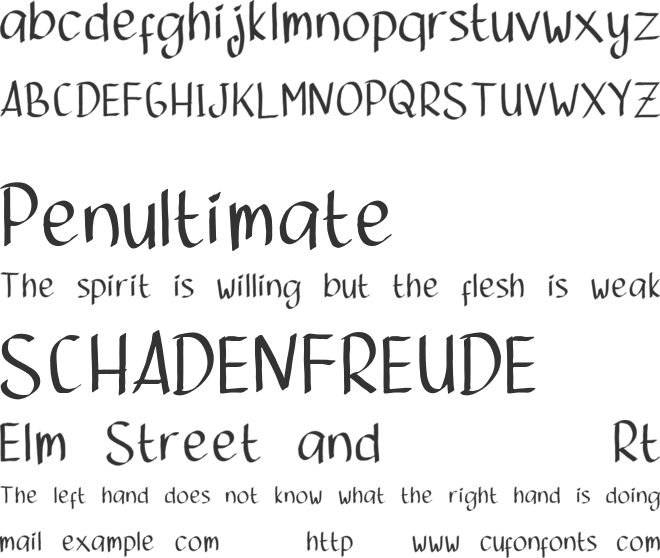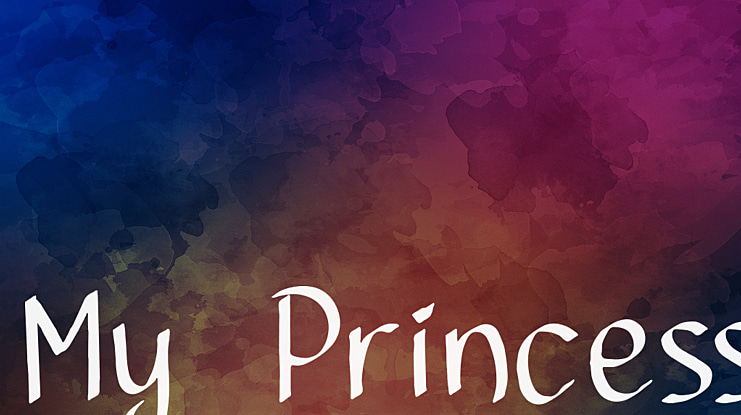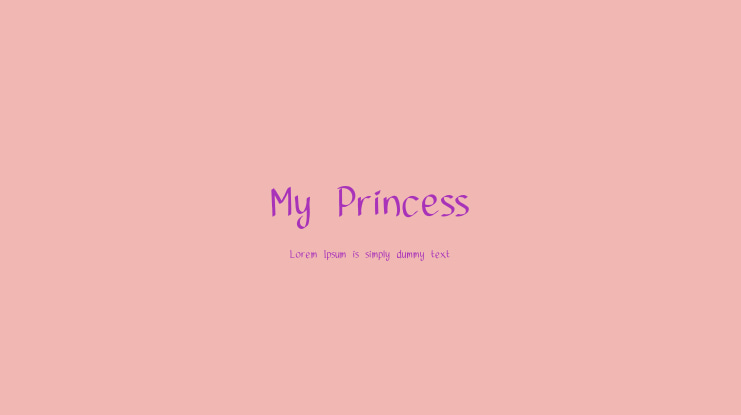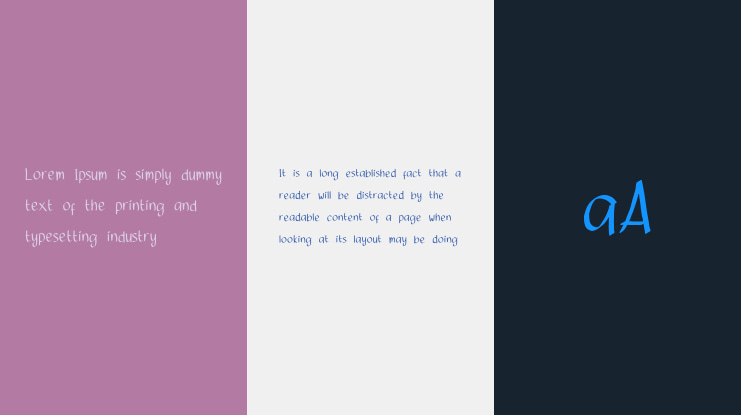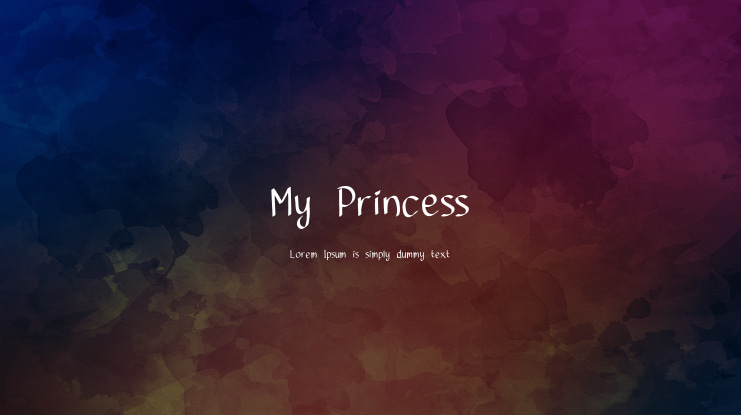
My Princess Font
My Princess is a sweet and delicate handwritten font. This gentle font will look gorgeous on a variety of design ideas. It will add a joyful and romantic touch to each of your projects!